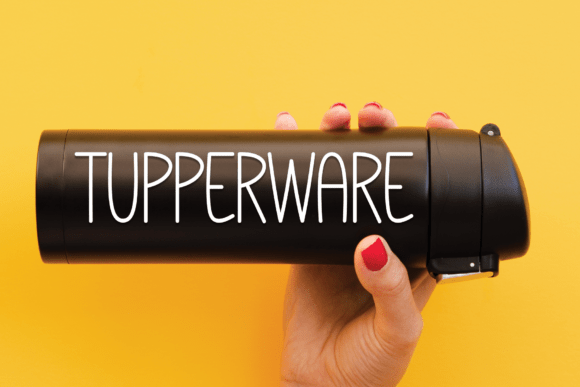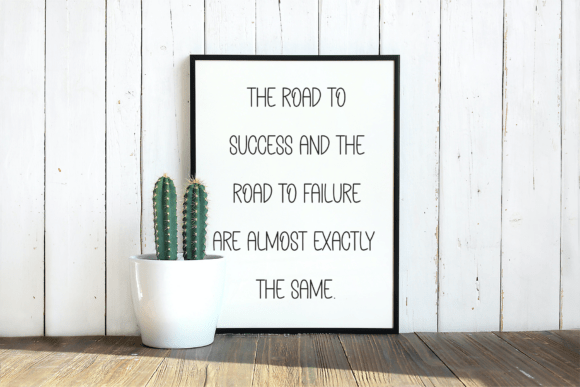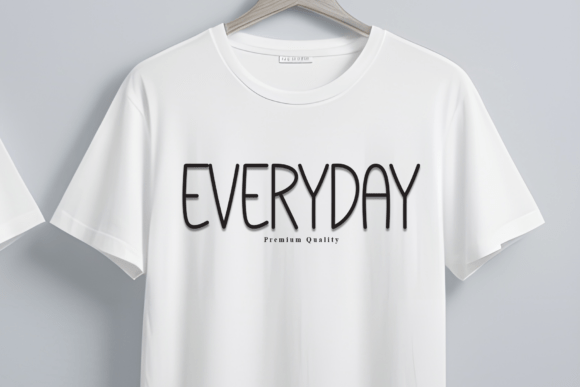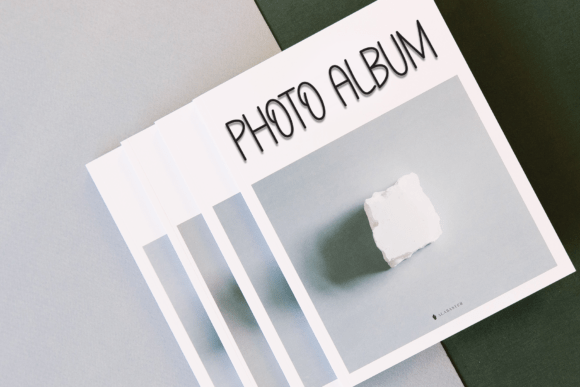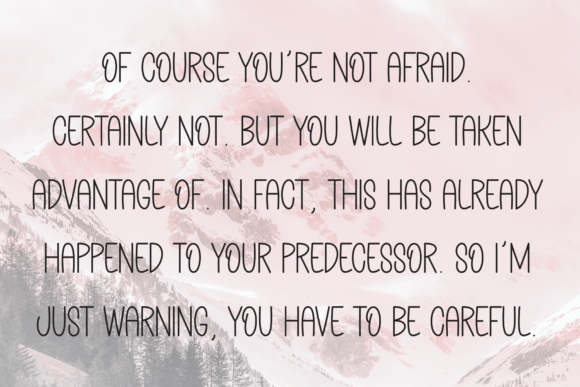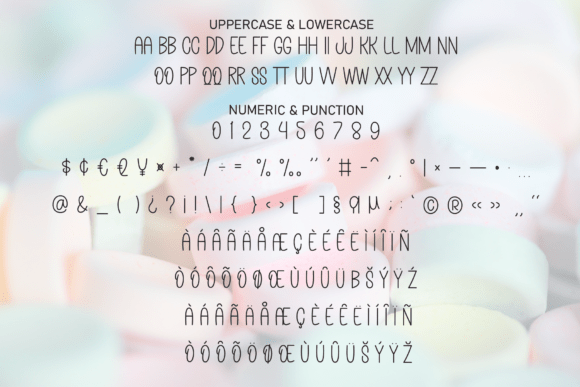
Candies Rainbow Font: A Delightful Addition to Your Design Palette
Are you on the hunt for a font that embodies the essence of joy, whimsy, and playfulness? Look no further than the Candies Rainbow Font, a charmingly fresh, handwritten display font that’s sure to captivate your audience. With its heartwarming appeal, this lovely font is perfect for creating a variety of designs that require a sprinkle of magic, from whimsical wedding invitations to heartfelt cards and more.
Handwritten fonts have a unique ability to add a personal touch to any design project. They evoke a sense of warmth, friendliness, and approachability, making them a popular choice for designers and crafters alike. The Candies Rainbow Font takes this charm to the next level with its playful, delightful, and endearingly inviting aesthetic.
What Makes Candies Rainbow Font Special?
So, what sets the Candies Rainbow Font apart from other fonts in its class? Here are a few key features that make it a standout:
- Gentle Strokes: The font’s gentle strokes give it a soft, romantic feel that’s perfect for creating whimsical designs.
- Lively Aesthetic: The Candies Rainbow Font has a lively, energetic vibe that’s sure to add a dash of fun to your design palette.
- Heartwarming Appeal: This font exudes a heartwarming appeal that’s perfect for creating designs that require a personal touch.
Perfect for Whimsical Designs
The Candies Rainbow Font is ideal for creating a variety of whimsical designs, including:
- Wedding Invitations: Add a touch of magic to your wedding invitations with this delightful font.
- Heartfelt Cards: Create heartfelt cards for special occasions, such as birthdays, anniversaries, and holidays.
- Design Projects: Use the Candies Rainbow Font to add a sprinkle of joyous charm to any design project, from branding and packaging to posters and flyers.
Why Choose Candies Rainbow Font?
With so many fonts to choose from, why should you choose the Candies Rainbow Font? Here are a few compelling reasons:
- Unique Aesthetic: The Candies Rainbow Font has a unique, eye-catching aesthetic that’s sure to set your designs apart.
- Versatility: This font is versatile and can be used for a variety of design projects, from whimsical wedding invitations to playful branding and packaging.
- Easy to Read: Despite its playful aesthetic, the Candies Rainbow Font is easy to read, making it perfect for designs that require a clear, concise message.
Tips for Using Candies Rainbow Font
Here are a few tips for getting the most out of the Candies Rainbow Font:
- Pair with Neutral Colors: Pair the Candies Rainbow Font with neutral colors to create a striking contrast that makes your design pop.
- Use in Headlines: Use the Candies Rainbow Font in headlines to add a touch of whimsy and playfulness to your design.
- Experiment with Sizes: Experiment with different font sizes to create visual interest and add depth to your design.
In conclusion, the Candies Rainbow Font is a charmingly fresh, handwritten display font that’s perfect for adding a sprinkle of joyous charm to your design palette. With its gentle strokes, lively aesthetic, and heartwarming appeal, this font is sure to captivate your audience and set your designs apart. Whether you’re a designer or crafter, the Candies Rainbow Font is a delightful addition to your toolkit.